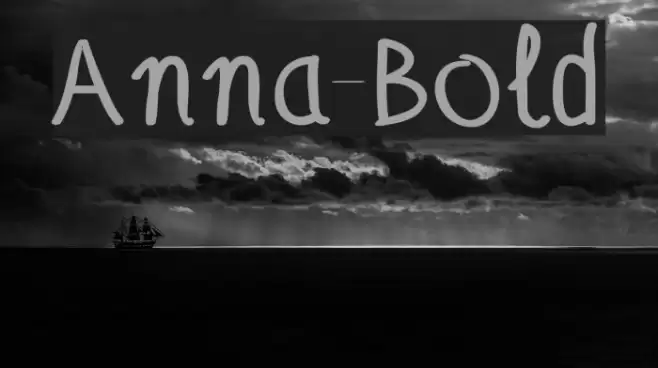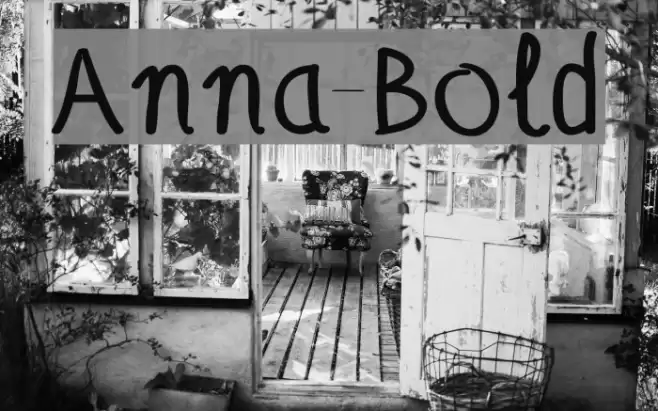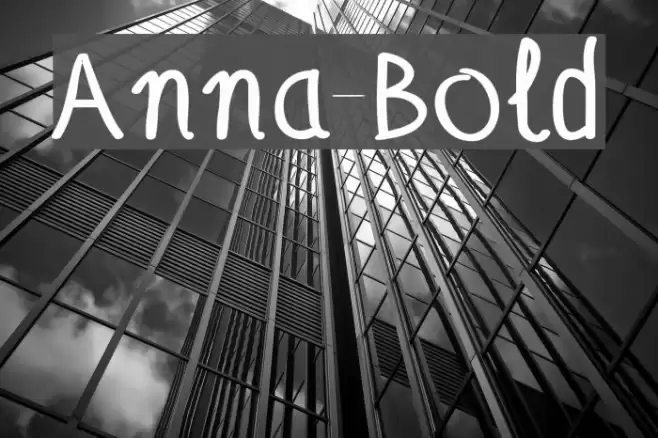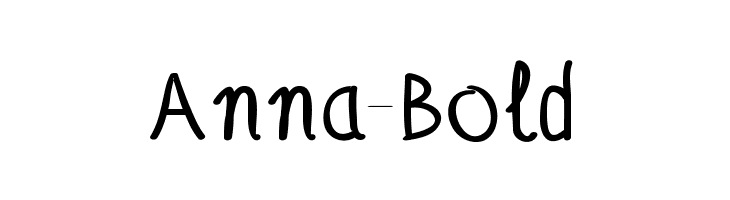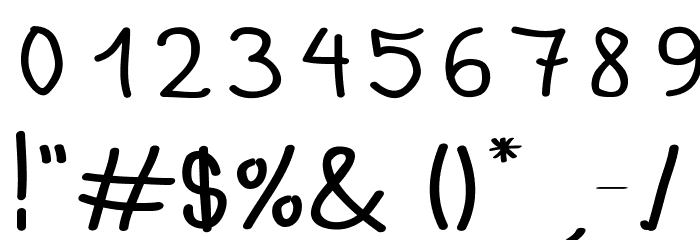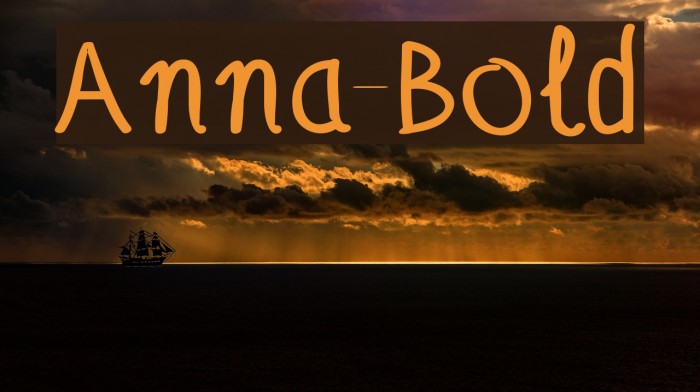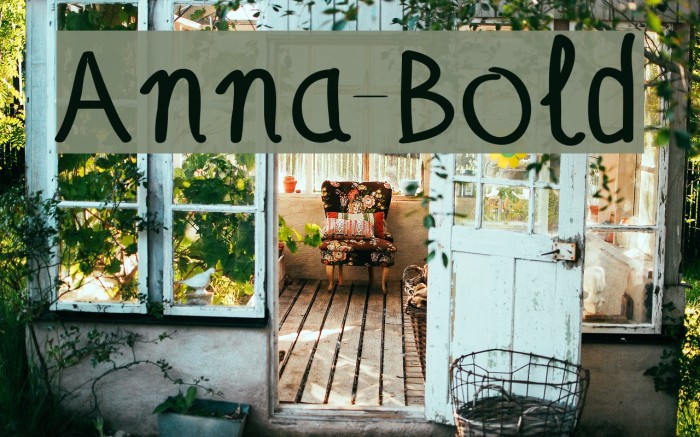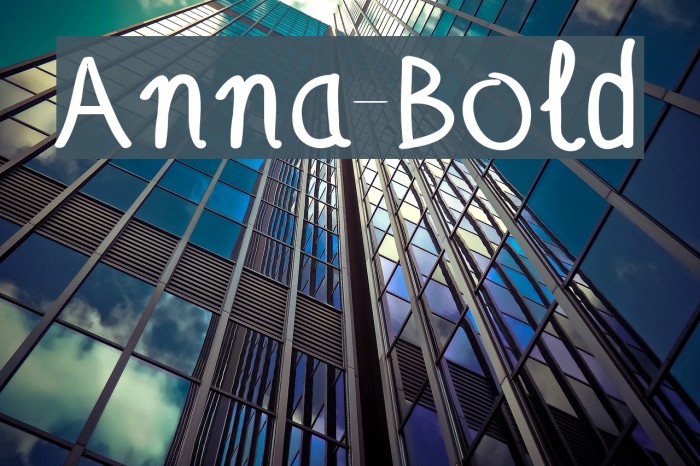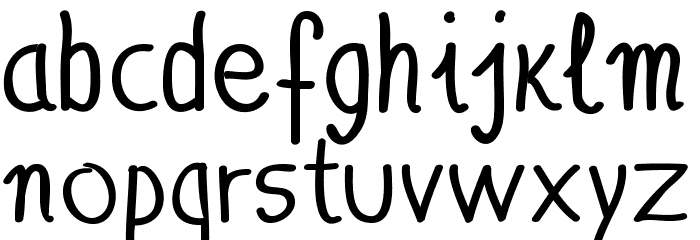
Anna-Bold Font
Anna-Bold Description
This font features a playful and informal style, characterized by its handwritten appearance. The letters are slightly irregular, giving it a casual and friendly feel. The uppercase and lowercase letters maintain a consistent flow, with rounded edges and a moderate stroke width. The numerals and special characters complement the alphabet with similar styling, ensuring a cohesive look. This font is versatile, suitable for projects that require a personal touch or a relaxed vibe.
A playful, handwritten-style font with a casual and friendly appearance from Uncategorized fonts.
- Proposed Projects: Ideal for greeting cards, children's books, casual branding, and social media graphics.
- Overall Style: Casual
- Use Case: Headlines, Logos, Informal Text